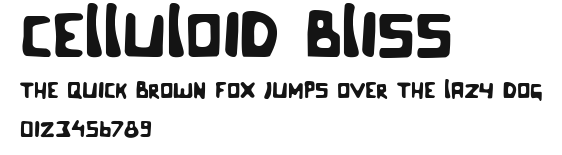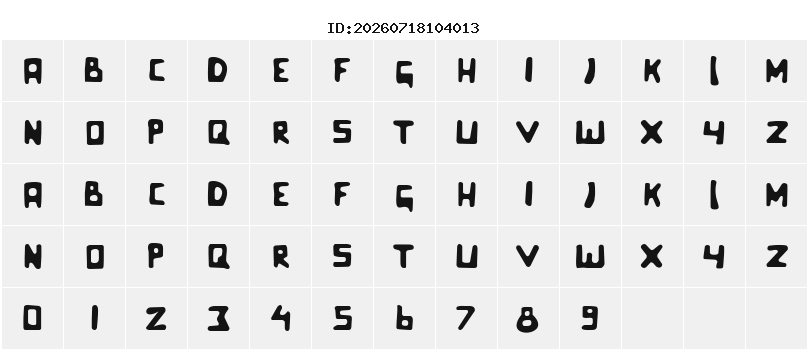
• Font Name: Celluloid Bliss
• Designer: David Kerkhoff
About Celluloid Bliss.ttf
Celluloid Bliss.ttf is a modern, elegant sans-serif font designed for ultimate readability and visual harmony. Perfect for branding, headlines, web design, and print materials.